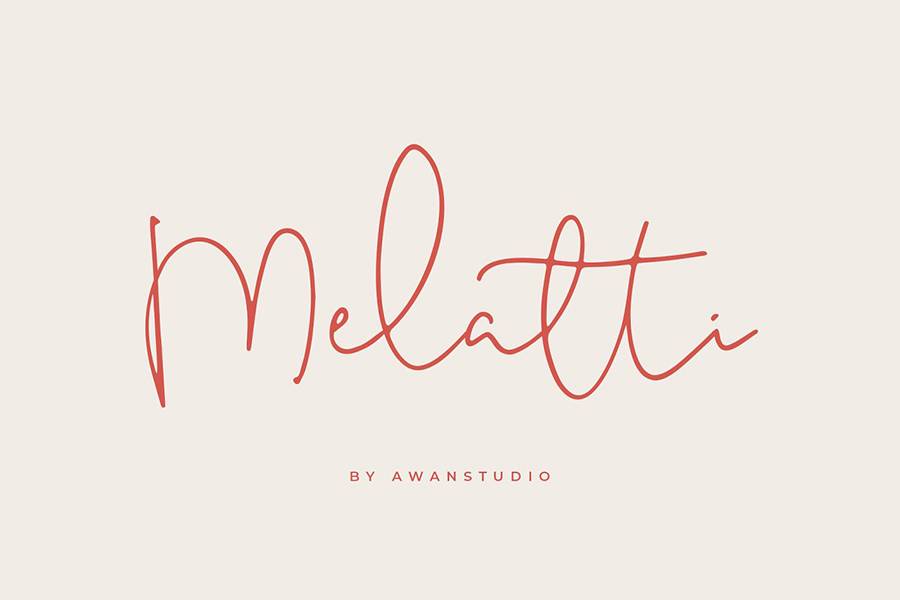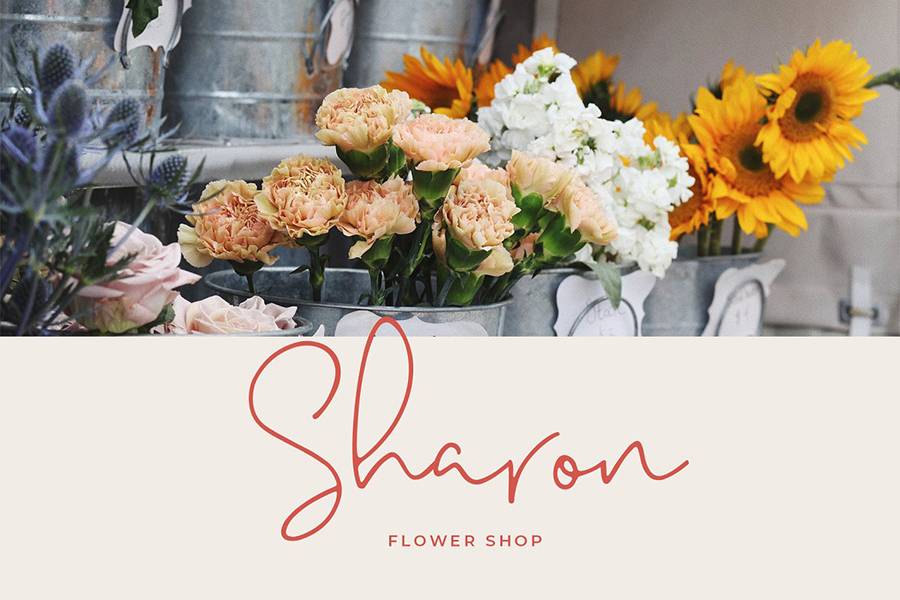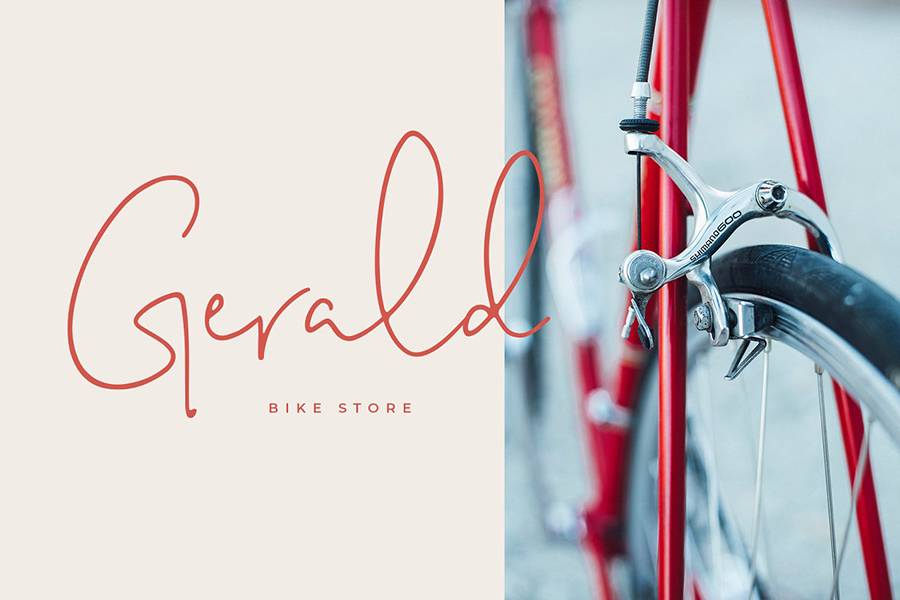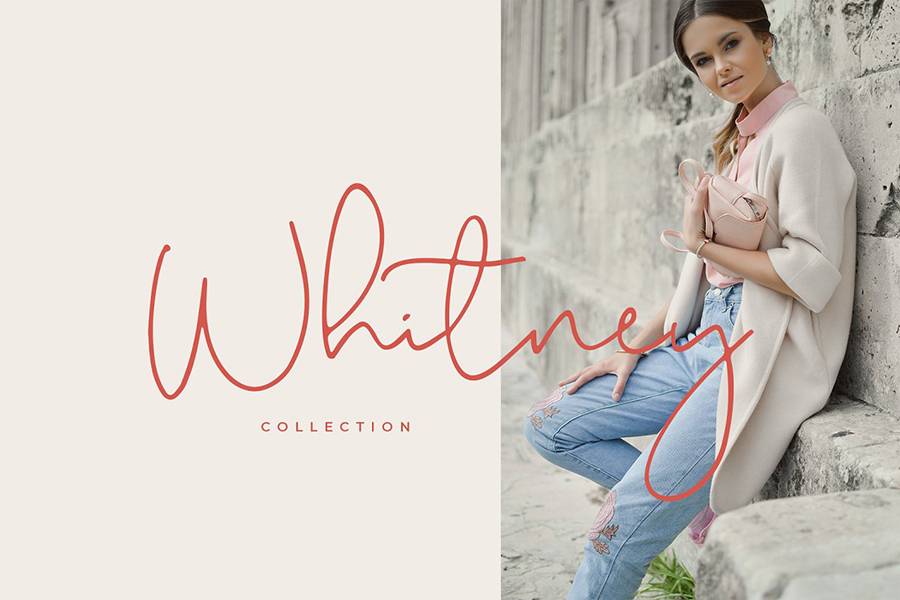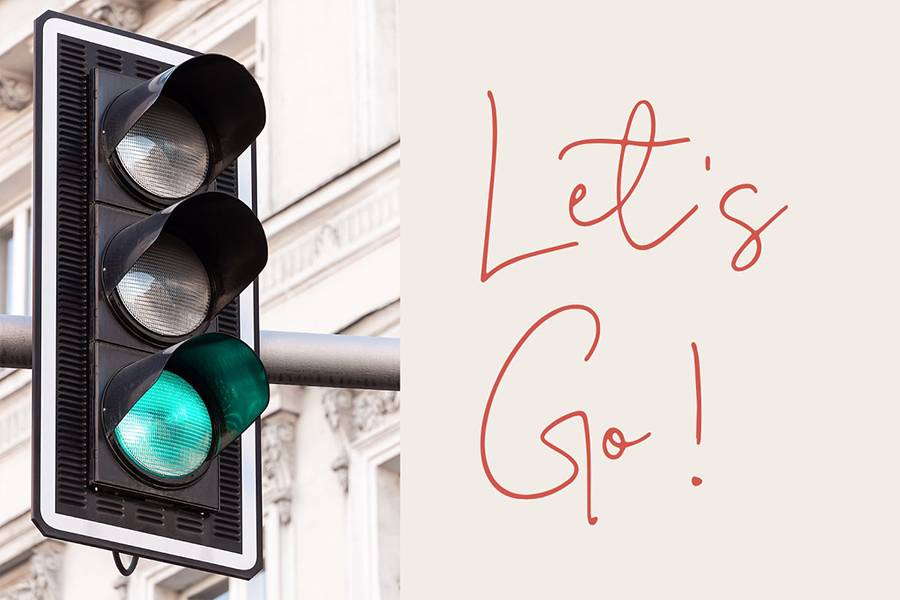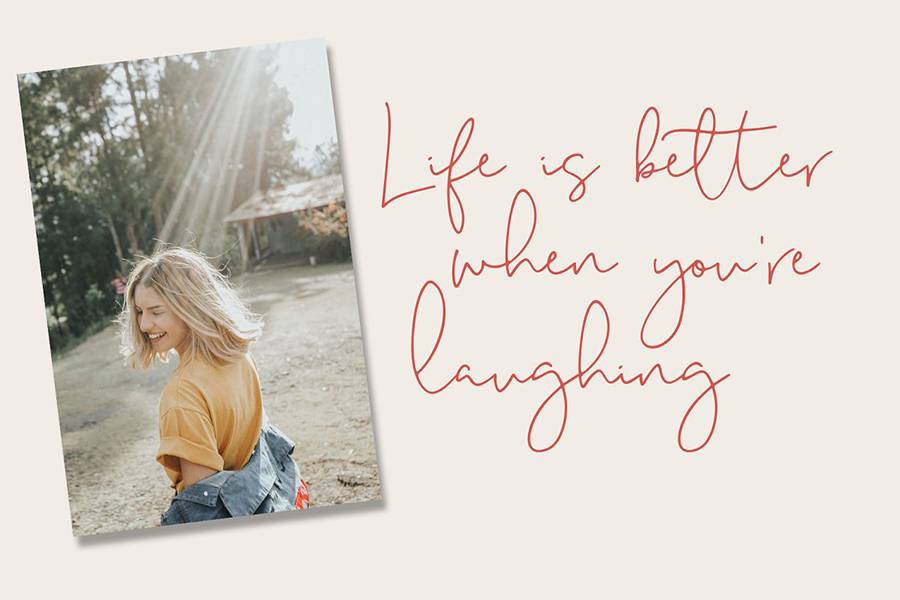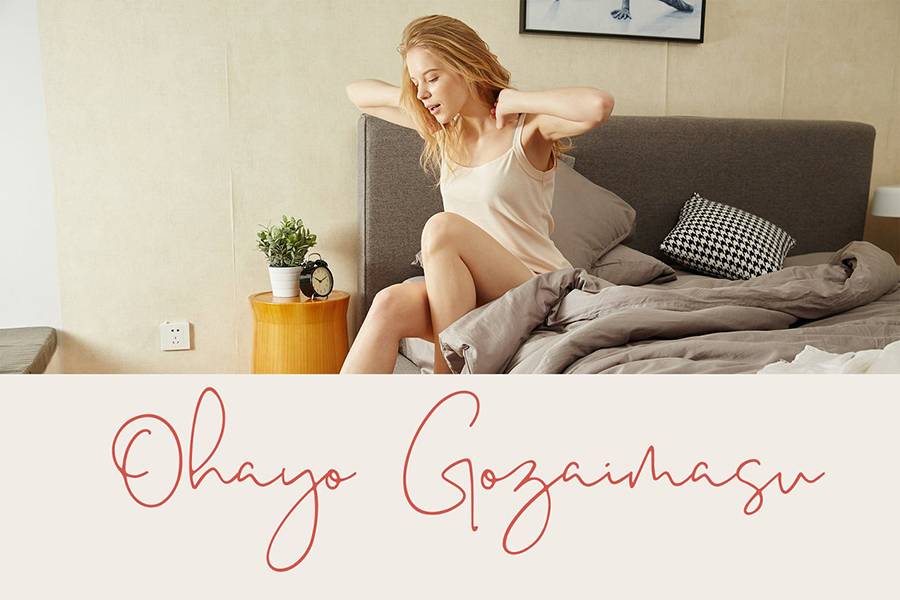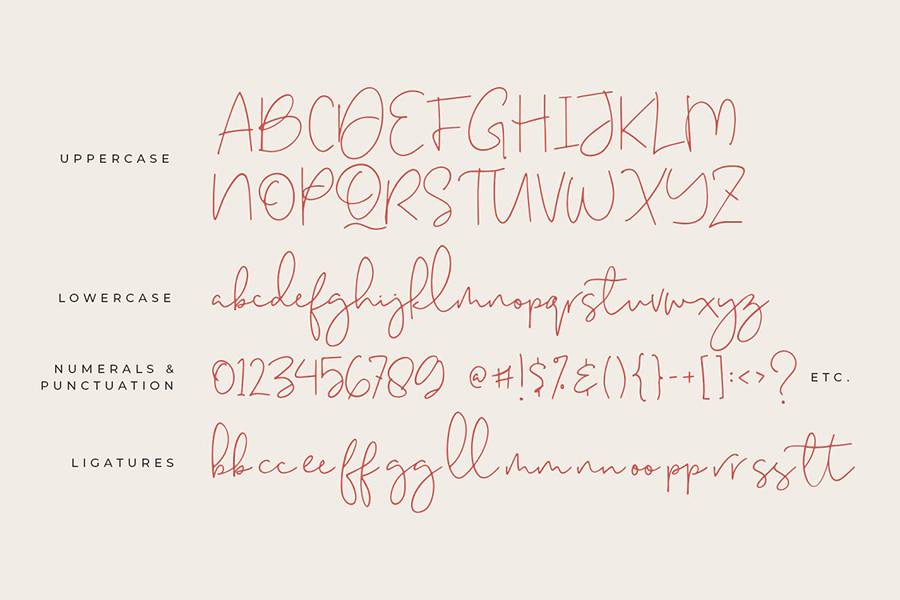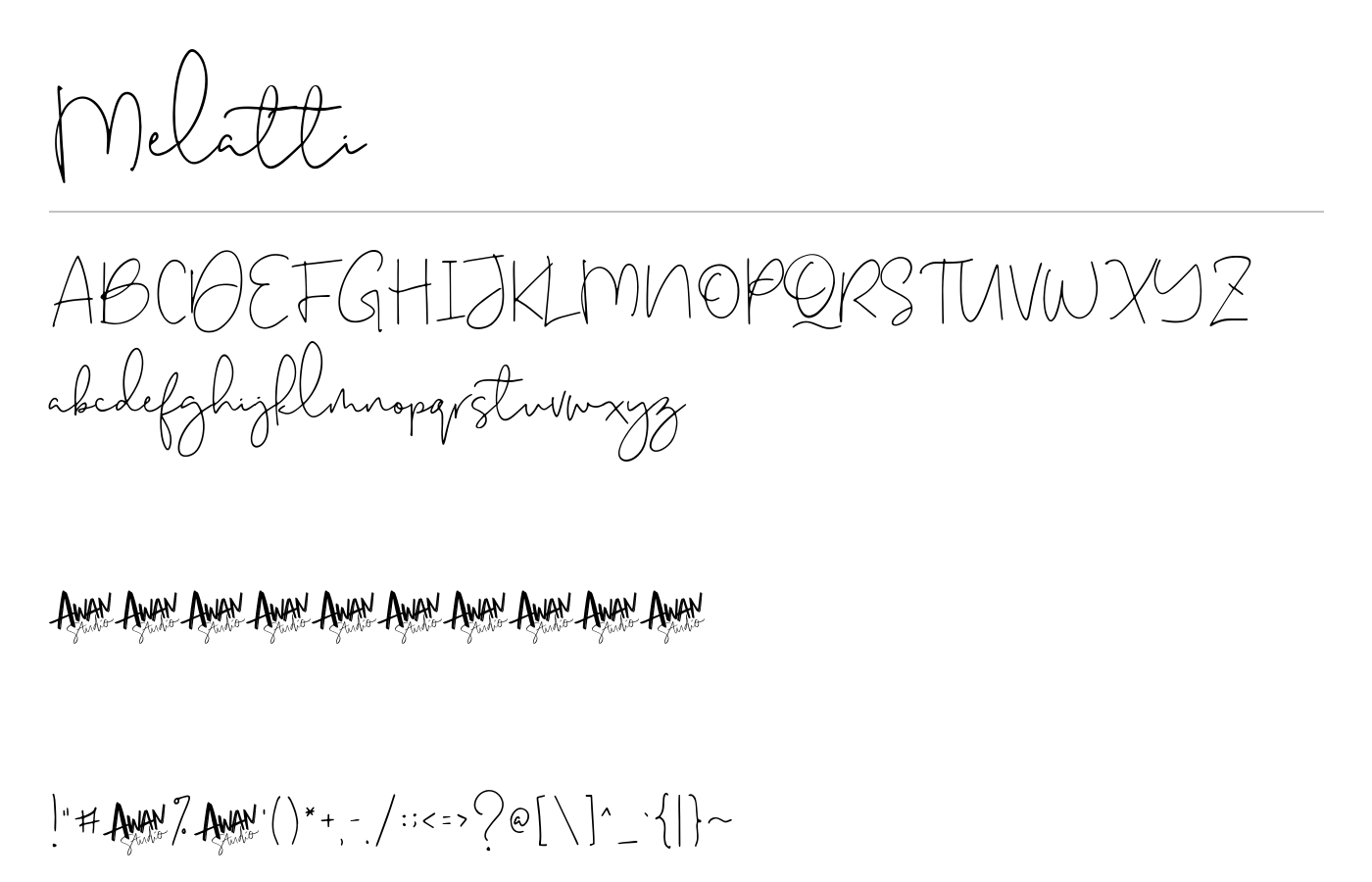
Melatti Handlettering Script is a delicate, handwritten font that exudes a casual, personal touch with its thin, airy strokes and natural flow. Its tall, slender letterforms with playful loops and slightly irregular lines create a charming, artistic feel, making it ideal for invitations, personal branding, and creative projects needing a warm, approachable style. This font works best when used in headlines, logos, or decorative accents where its unique, intimate character can truly shine.
Melatti Handlettering Script
About Melatti Handlettering Script
| Designer | AwanStudio |